Every design era leaves behind a visual fingerprint and in recent years, the retro aesthetic has made a remarkable comeback. From neon gradients to bold serifs and nostalgic textures, retro-inspired design has evolved into something fresh, vibrant, and undeniably modern.
At the heart of this revival are modern retro font, typefaces that combine the nostalgic soul of the 1970s, 1980s, and 1990s with the clarity, precision, and scalability required for today’s digital world.
Whether you’re designing for fashion, music, tech, or lifestyle brands, these fonts allow you to tap into collective nostalgia while maintaining sleek, professional readability. In short, modern retro fonts aren’t about looking old, they’re about reimagining the past for the future.
1. What Defines a Modern Retro Font?
Modern retro fonts strike a delicate balance between vintage personality and contemporary functionality.
They often feature:
- Bold serifs that echo editorial typography from the ’70s and ’80s.
- Rounded edges that soften the tone, giving a friendly and inviting feel.
- High contrast strokes that add sophistication and flair.
- Minimalist forms that ensure legibility in digital formats.
The result is a harmonious fusion of nostalgia and modernity, fonts that look just as good on a fashion magazine cover as they do on a smartphone interface.
💡 In essence: Modern retro fonts preserve the charm of analog design while thriving in the precision-driven digital landscape.
2. Why Designers Love the Retro Revival
The resurgence of retro design isn’t just about visual nostalgia, it’s about emotion and identity.
Retro fonts trigger memories, evoke familiarity, and build an instant emotional connection with audiences. In a fast-paced, tech-heavy world, this human warmth is refreshing.
Key Reasons Designers Use Modern Retro Fonts:
- Emotional storytelling: They infuse designs with heritage and authenticity.
- Versatile applications: From branding to packaging to digital ads.
- Instant recognition: Retro styles stand out in a sea of minimalism.
- Trend endurance: While many design fads fade, retro always returns.
Modern retro fonts give brands a distinct personality playful yet elegant, familiar yet innovative making them a go-to choice for creatives seeking timeless appeal.
3. Popular Styles of Modern Retro Fonts
Not all retro fonts are the same. The beauty of this genre lies in its stylistic diversity. Let’s explore a few key styles and when to use them:
🧵 a. Elegant Serif Fonts: Timeless and Editorial
These fonts blend the luxury of classic print typography with clean modern proportions.
They’re perfect for fashion brands, magazines, and product packaging.
Examples from Putracetol.com:
- Rovica Modern Retro Display Font – A sophisticated serif font with delicate curves and bold confidence.
- Aureline Elegant Serif Font – Ideal for editorial layouts and boutique branding.
- Luxerna Display Modern Minimalist Font – A clean yet glamorous font that blends luxury and readability.
💡 Perfect for: Beauty brands, luxury packaging, high-end fashion labels.
💿 b. Sans-Serif Minimalism: Futuristic Yet Retro
Retro sans-serifs often reference 1970s and 1980s advertising, geometric, bold, and symmetrical. Today’s modern reinterpretations use cleaner lines for a digital twist.
Recommended Fonts:
- Flece Display Modern Sans Font – A minimal yet stylish font for tech and lifestyle projects.
- Rolever Modern Sans-Serif Font – Strong, clean, and perfectly suited for modern branding.
- Votrag 10 Modern Font – Contemporary geometry meets nostalgic rhythm.
💡 Perfect for: Tech brands, digital platforms, or sleek promotional visuals.
🌈 c. Groovy and Psychedelic Fonts: 70s Vibrance
If you want your designs to radiate joy and creativity, groovy retro fonts are a perfect fit. These fonts often include wavy letterforms, fluid ligatures, and fun details that echo the free-spirited vibes of the 1970s.
Examples:
- Popdash Retro Psychedelic Font – A colorful burst of energy, great for posters and events.
- Moltar Retro Reverse Contrast Font – A bold and funky typeface with unique letter contrast.
- Retro Summer Font – Nostalgic yet fresh, ideal for lifestyle and travel brands.
💡 Perfect for: Music festivals, creative posters, merchandise design.
🕶️ d. Vintage-Inspired Fonts for Music and Posters
Some modern retro fonts channel the aesthetic of vinyl covers, concert posters, and cinema billboards. These typefaces often include condensed proportions, tall serifs, or script variations that feel cinematic and bold.
Try these:
- The Bad Vintage Font – Rugged yet refined, excellent for album covers or retro branding.
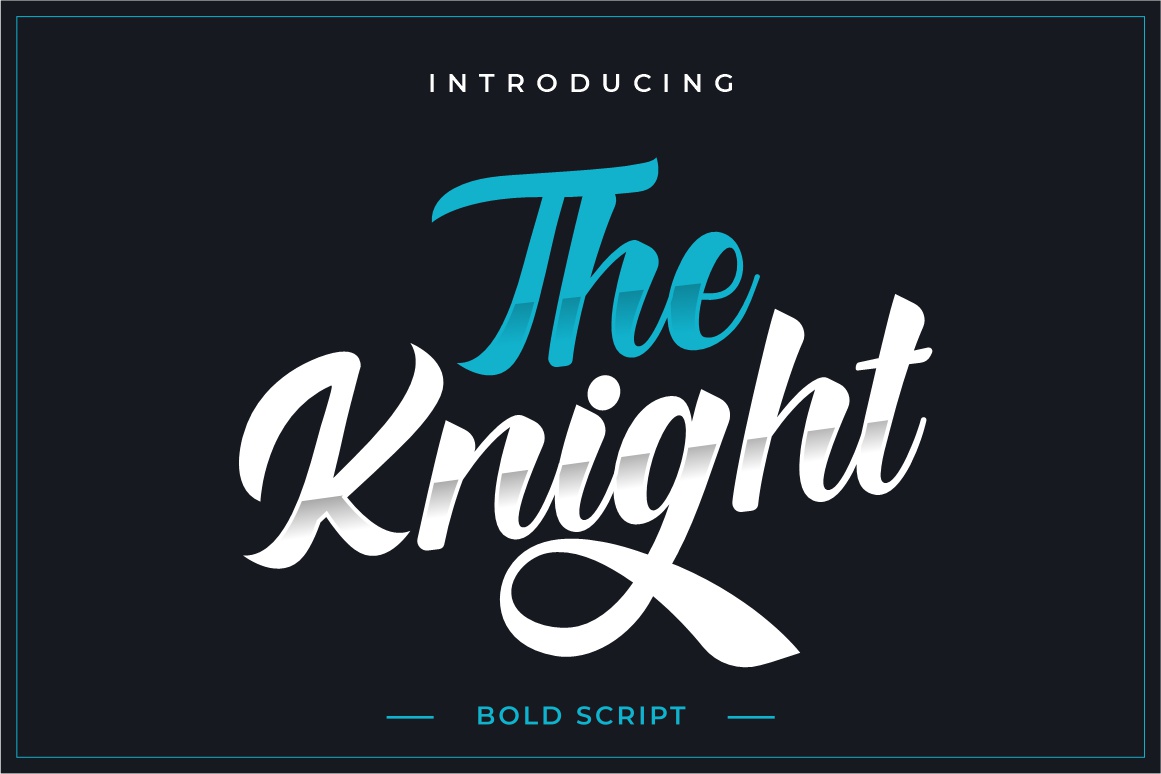
- The Knight Font – Bold and cinematic, made for impactful display use.
- Hyporia Bold Logo Font – A powerful font for modern-retro logos and posters.
💡 Perfect for: Music-themed projects, vintage movie posters, creative promotions.
Because good typography doesn’t just decorate it defines eras.